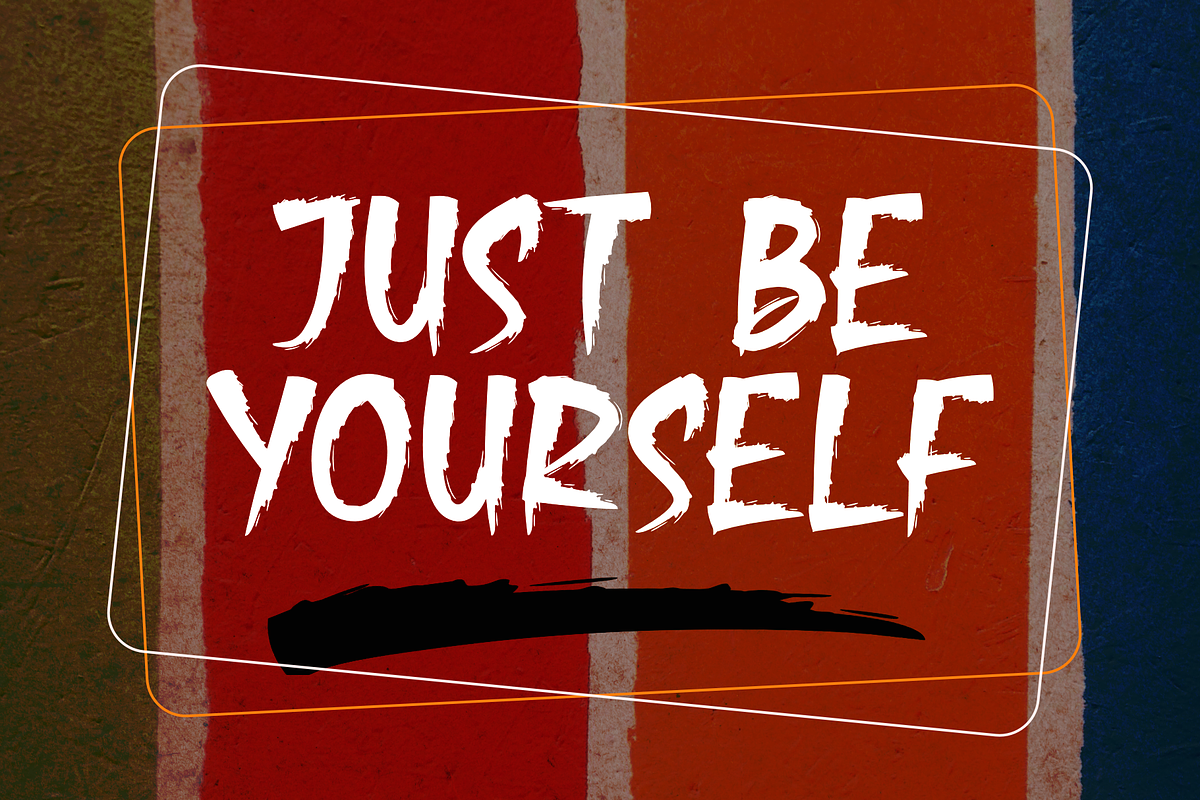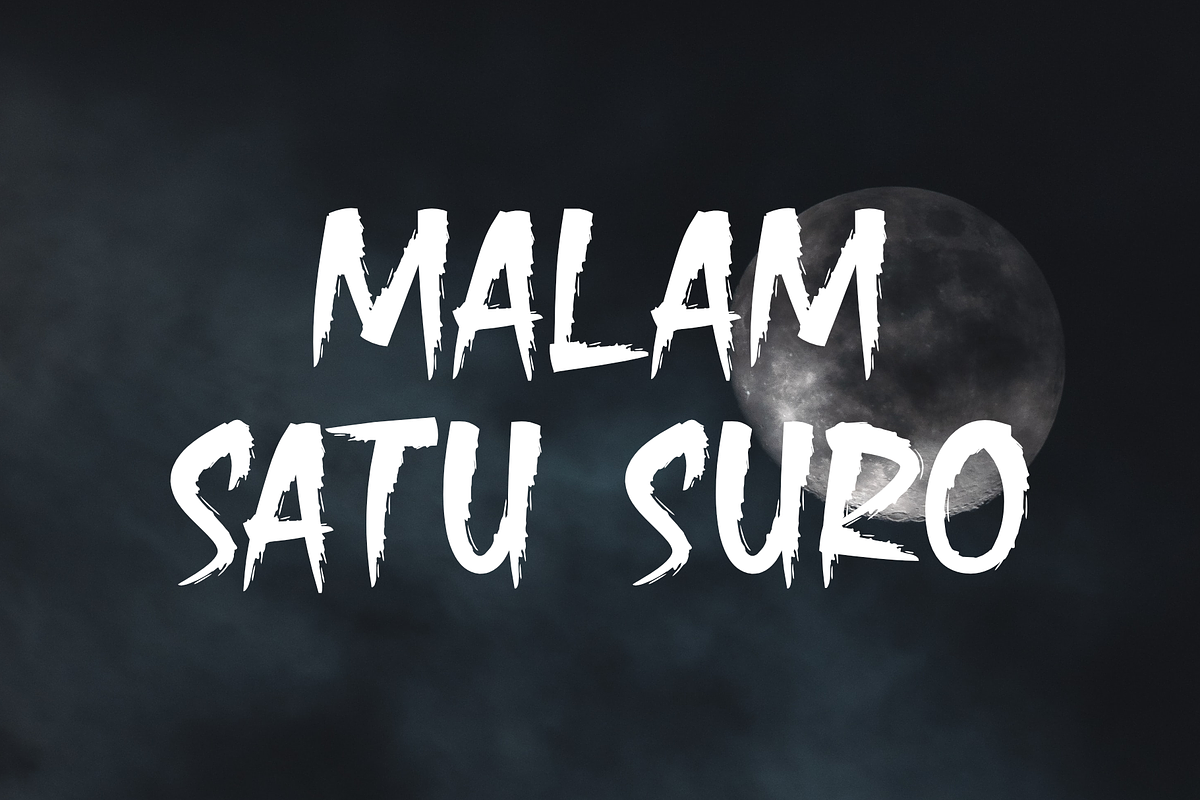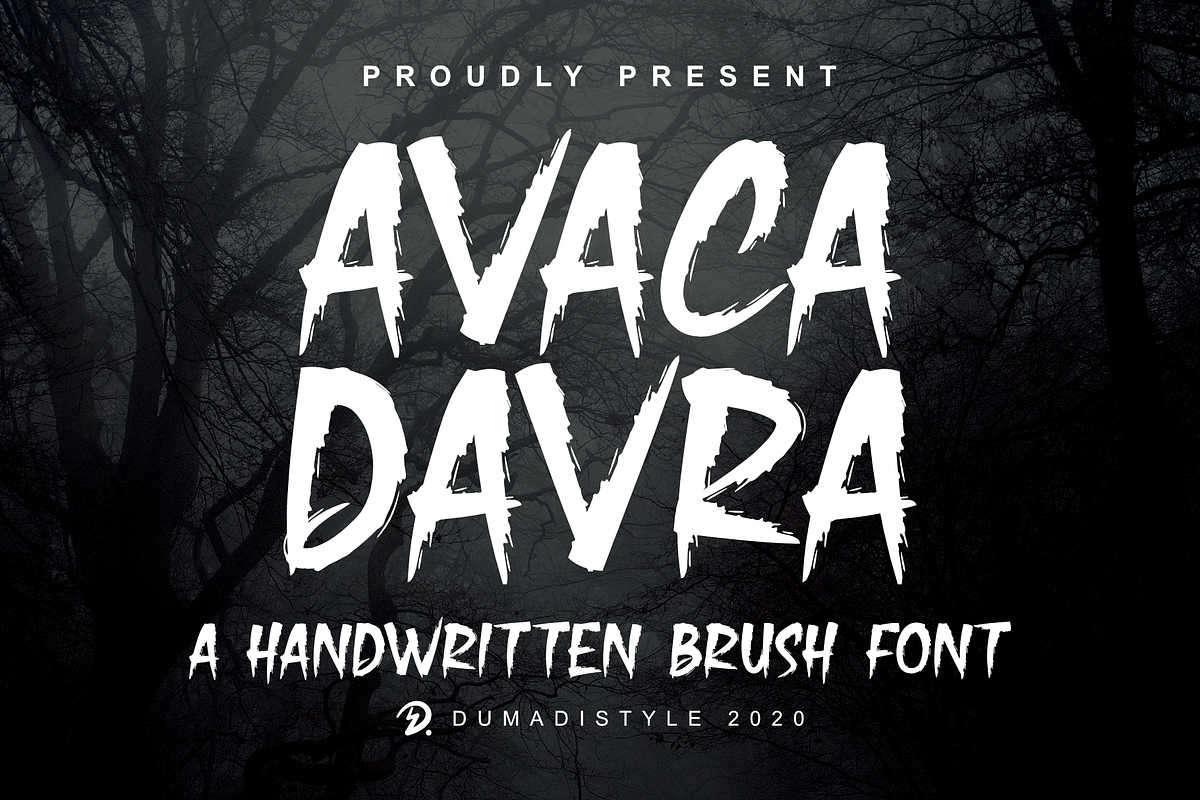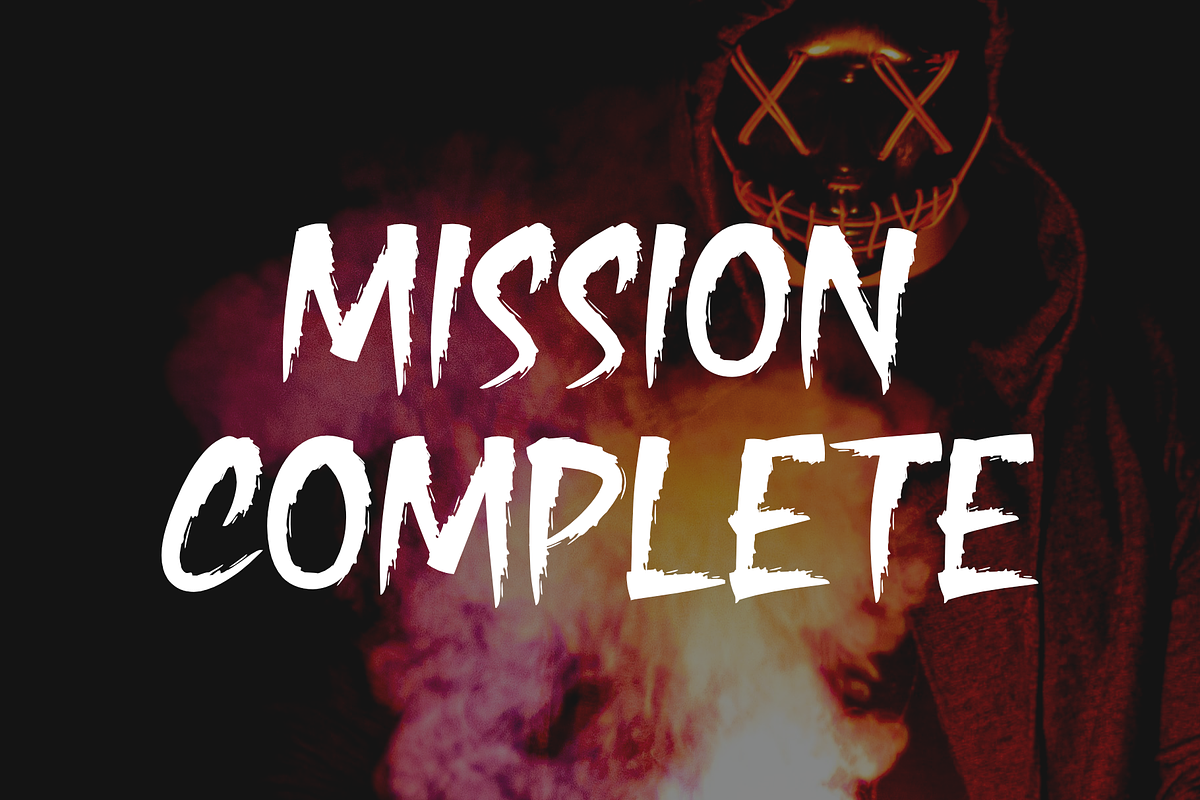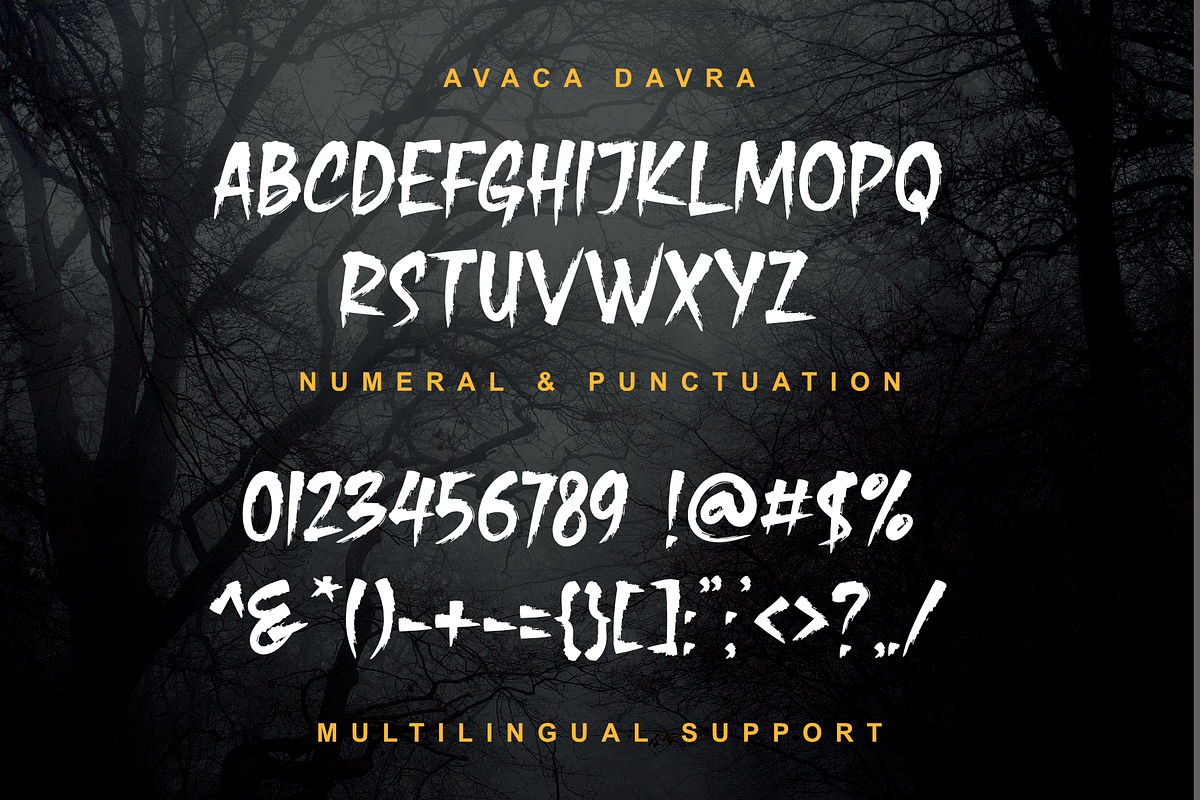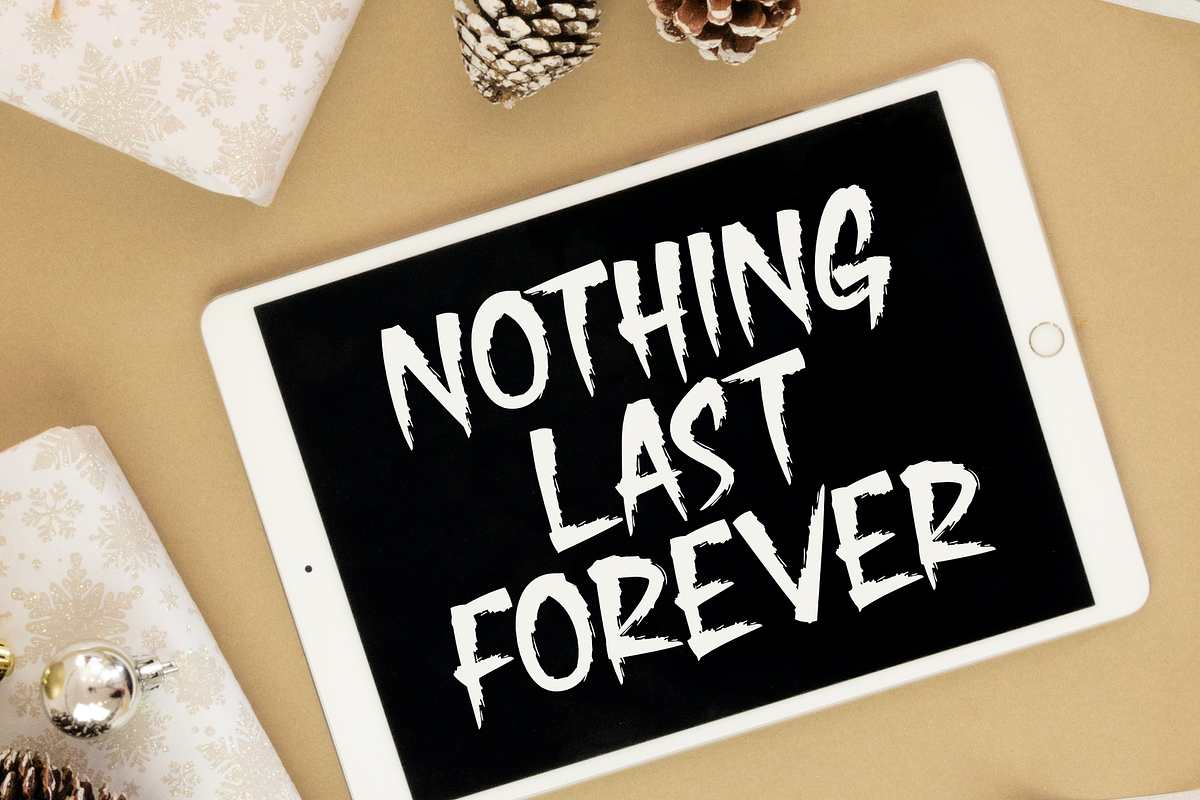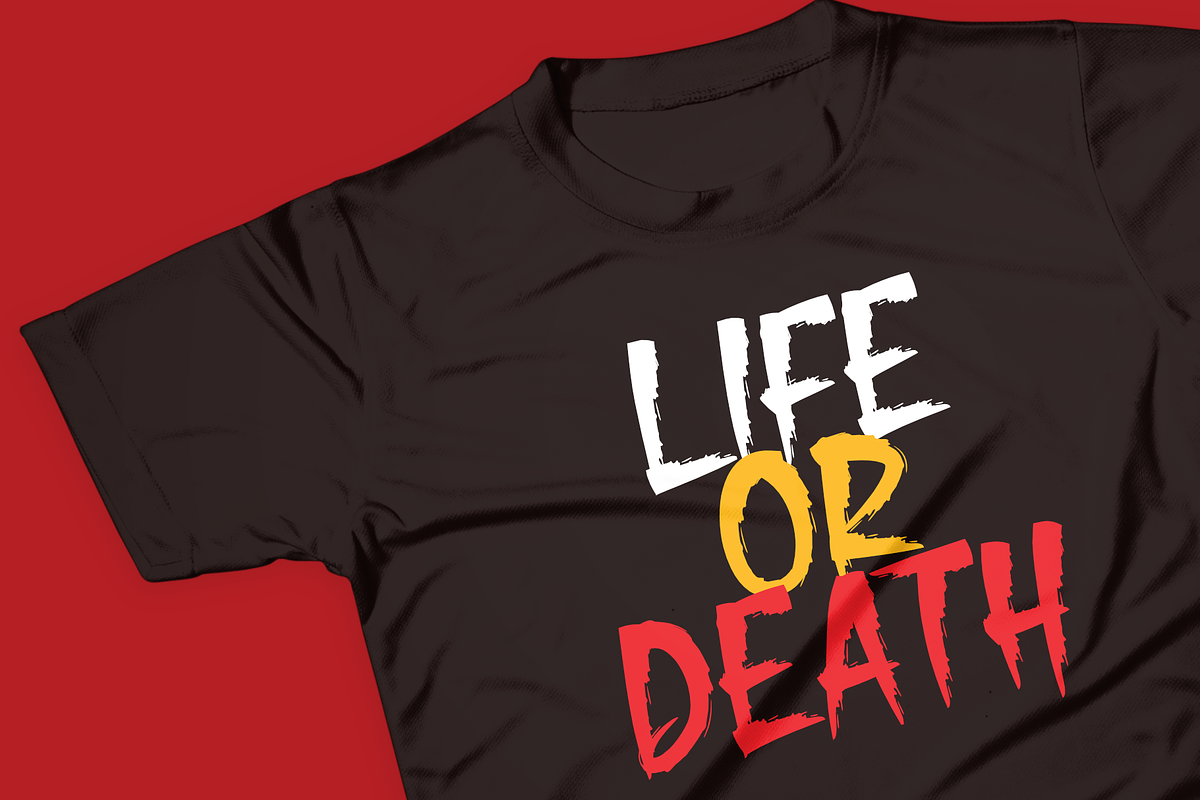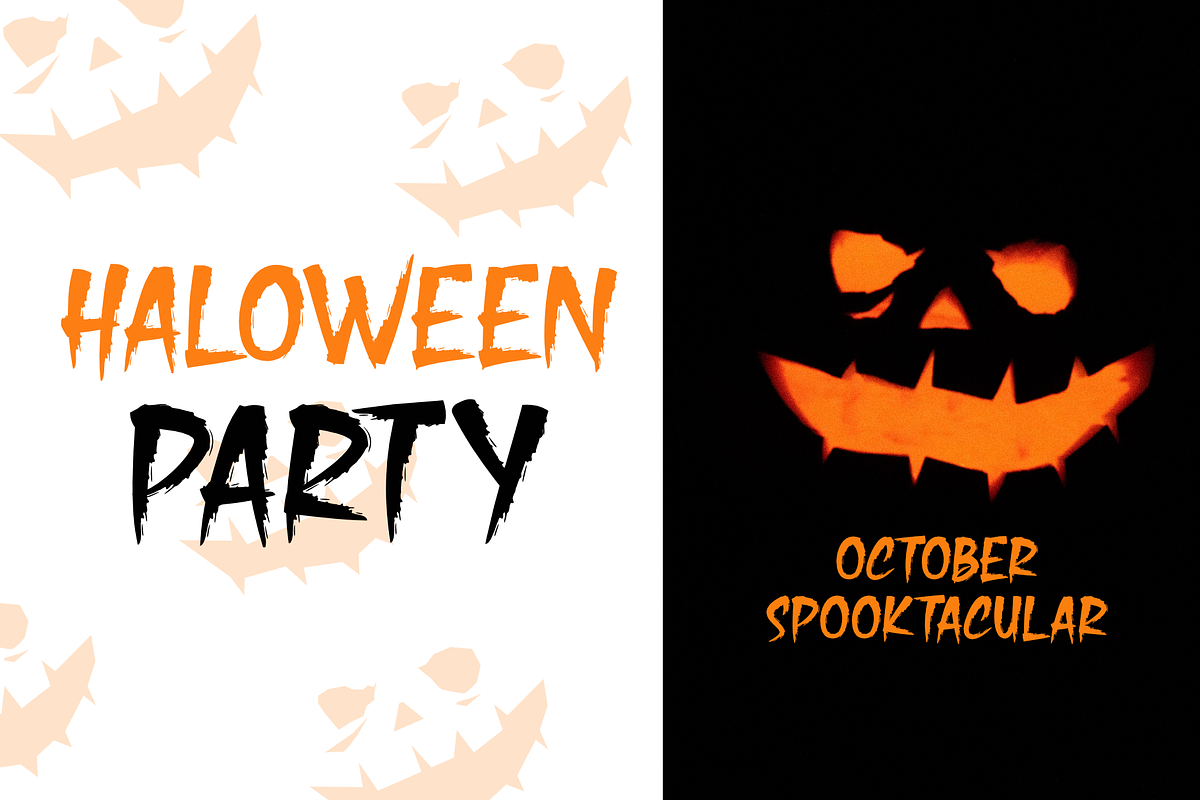
Avaka Davra
Avaka Davra is a handwritten brush font with a spooky feel. This font is suitable for spooky, gripping, and terrifying themes.
with this font will add chemistry to your designs. branding social media and collaborating with digital products would be a perfect fit.